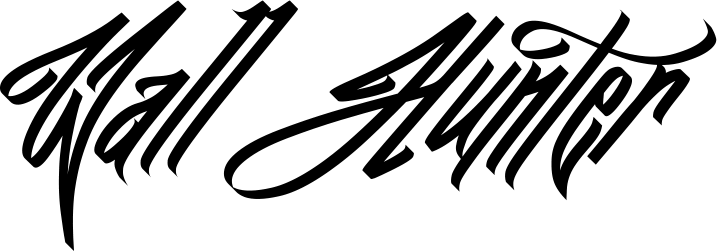
JFK Wall Hunter Font
JFK Wall Hunter is a script font with a graffiti style that does not support numbers and punctuation. The important point about this graffiti font is that it doesn’t have good readability. It conveys a sense of excitemen…
JFK Wall Hunter is a script font with a graffiti style that does not support numbers and punctuation. The important point about this graffiti font is that it doesn’t have good readability. It conveys a sense of excitement and professionalism to the audience due to its stylish design, so it is ideal for designing logos and album covers.
Wall Hunter is an graffiti tag font, using digital marker in wild style of hip hop culture. dedicate and inspirated by street art artist over the world. Hope u enjoy this, like n comment please